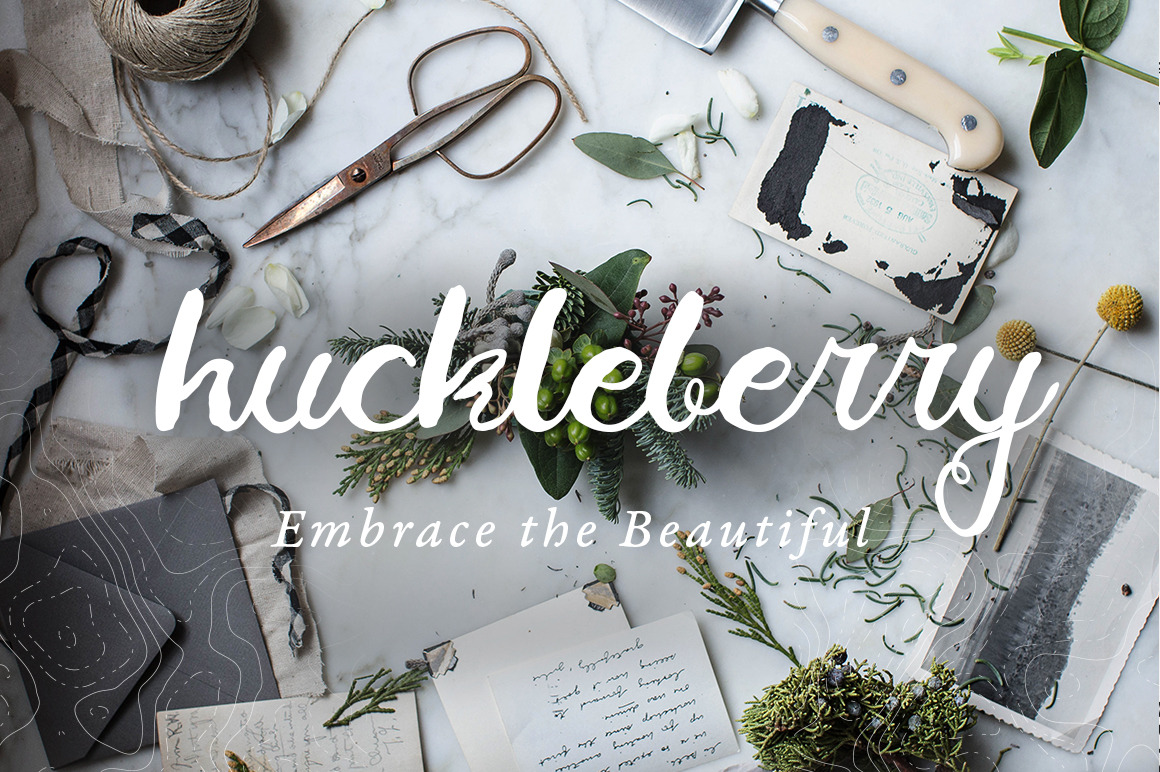
The Charming Huckleberry Font
Huckleberry's nature is that of charm, being a hybrid between curly scripts and elegant skewed fonts, the perfect candidate for your headlines, logos and anything that needs to grab attention. It supports international characters as well as ligatures, a complete experience! ♥
Currently supported languages: Czech, Polish, Hungarian, Latvian, German, Albanian, Estonian, Dutch, French, Romanian, Hawaiian, pretty much every single major language is supported but drop me a line if you'd like anything added!
Ligatures also supported! Tell me if you'd like to see more.